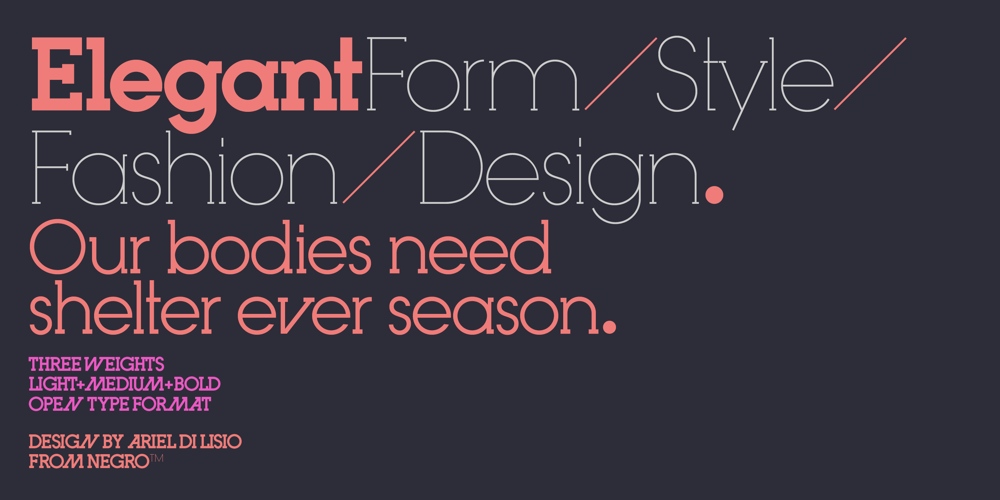
Inlove Font Family was designed by Alejandro Paul, Ariel Di Lisio and published by Sudtipos. Inlove contains 3 styles and family package options. Ideal for magazines, posters or flyers, Inlove is a modern take of Ariel Di Lisio’s passion for geometric and very contrasted typefaces. Because the strong influence over his work, Ariel was invited during 2009 to be part of the Herb Lubalin Exhibition at New York. Designed by Ariel Di Lisio and digitized by Ale Paul.